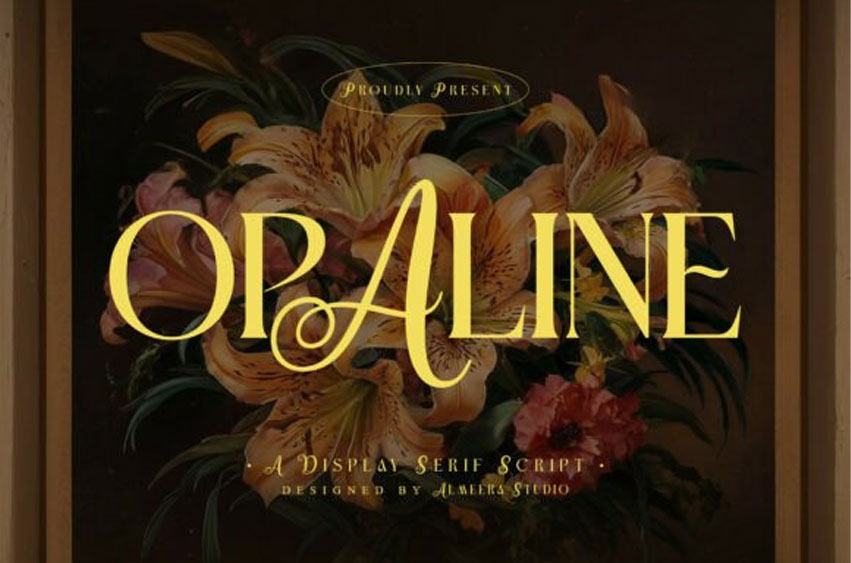
Opaline Font is a Display Serif Script that merges classic serif elegance with refined script flourishes. Designed with delicate details, graceful contrast, and soft ornamental touches, Opaline becomes the perfect choice for luxury branding, premium packaging, artistic invitations, editorial titles, and any project that seeks a sophisticated and timeless aesthetic.
Each letter radiates charm and refinement, offering a high-end visual experience for designers who value elegance.